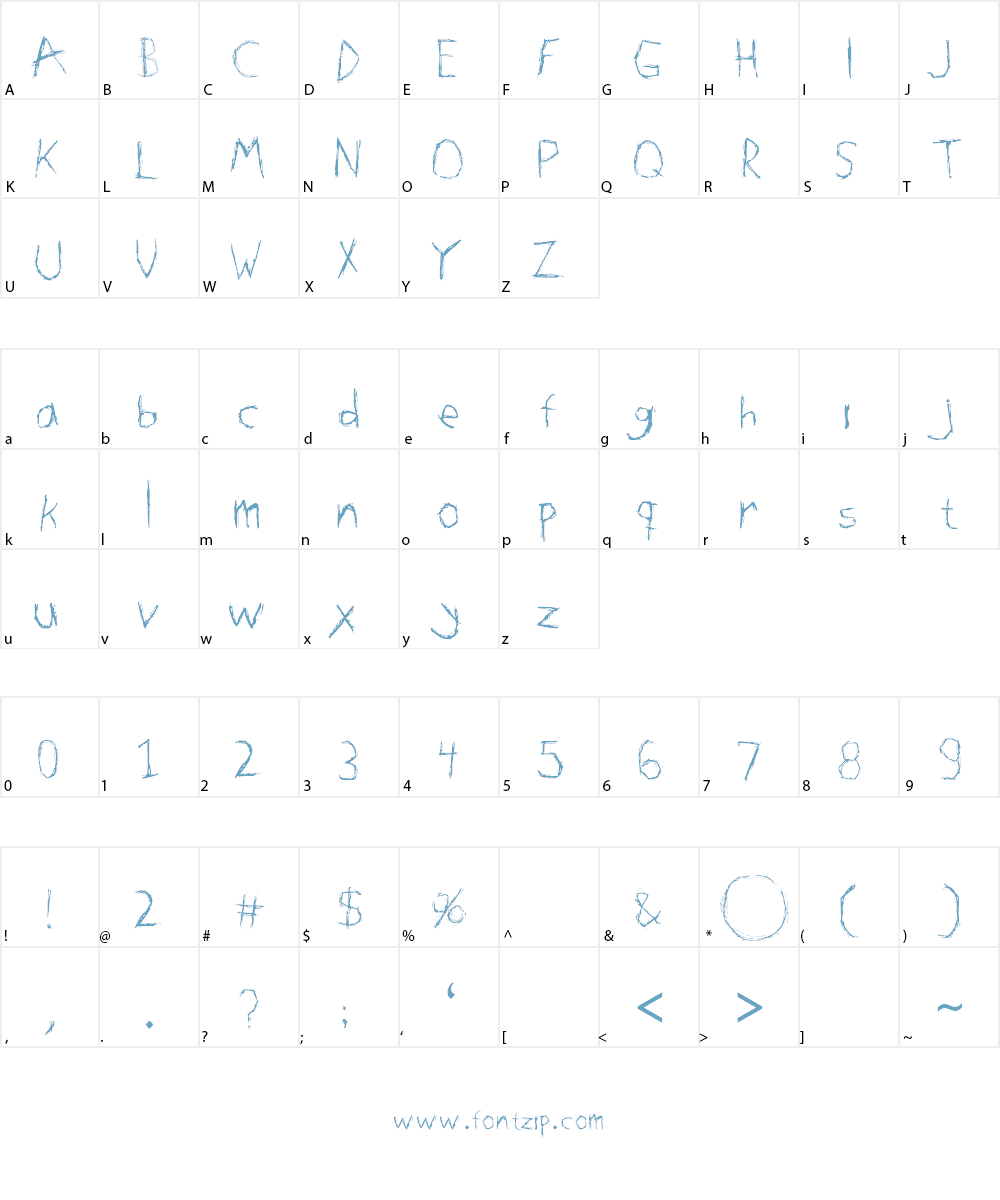
The typeface of the movie "Rings", contains upper and lowercase characters
NOTE: This source is made 100% made by me, based on the typography on the trailers of the movie.